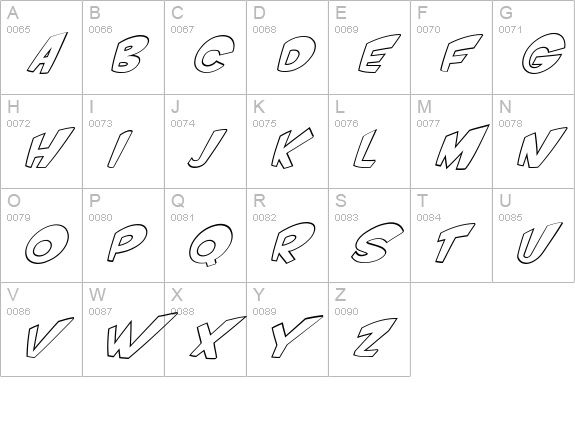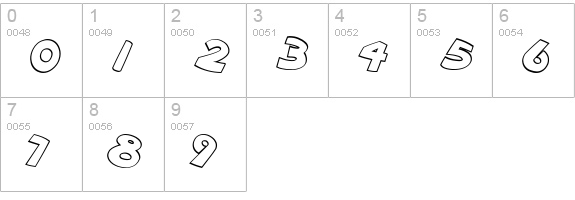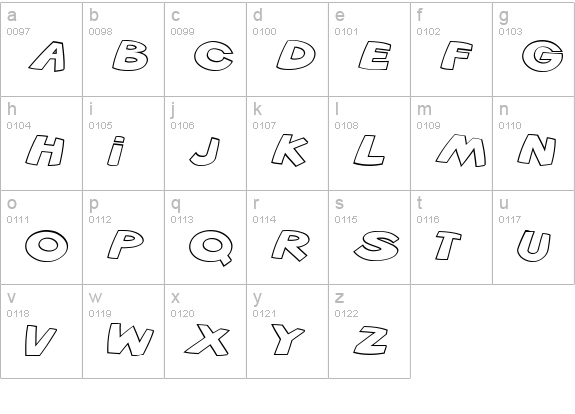
VTC ScreamItLoud Outline Italic Font Details
VTC ScreamItLoud Outline Italic is a distinctive, italic variant in the VTC typeface family \xE2\x80\x94 well suited to design and typography projects.
Introducing VTC ScreamItLoud Outline Italic font, a bold and eye-catching typeface designed to make a statement. This font is perfect for those who want to add a touch of edginess and excitement to their designs. With its distinctive outline and italic style, it exudes a sense of energy and modernity that is sure to captivate any audience. What sets VTC ScreamItLoud Outline Italic font apart is not only its unique design, but also the fact that it is available for free. Yes, you heard it right! This font can be freely downloaded at FontsMarket.com, making it accessible to all designers, artists, and creatives who are looking for a high-quality and visually striking font without breaking the bank. Whether you're working on a poster, logo, headline, or any other design project, VTC ScreamItLoud Outline Italic font is sure to make your text stand out. Its bold and dynamic appearance will grab attention and leave a lasting impression. Pair it with other fonts or use it on its own, and watch your designs come to life with a touch of excitement and personality. Don't miss out on the opportunity to enhance your designs with this incredible font. Download VTC ScreamItLoud Outline Italic font for free at FontsMarket.com and unleash your creativity today. Make a bold statement and let your text scream loud and proud with this exceptional typeface.